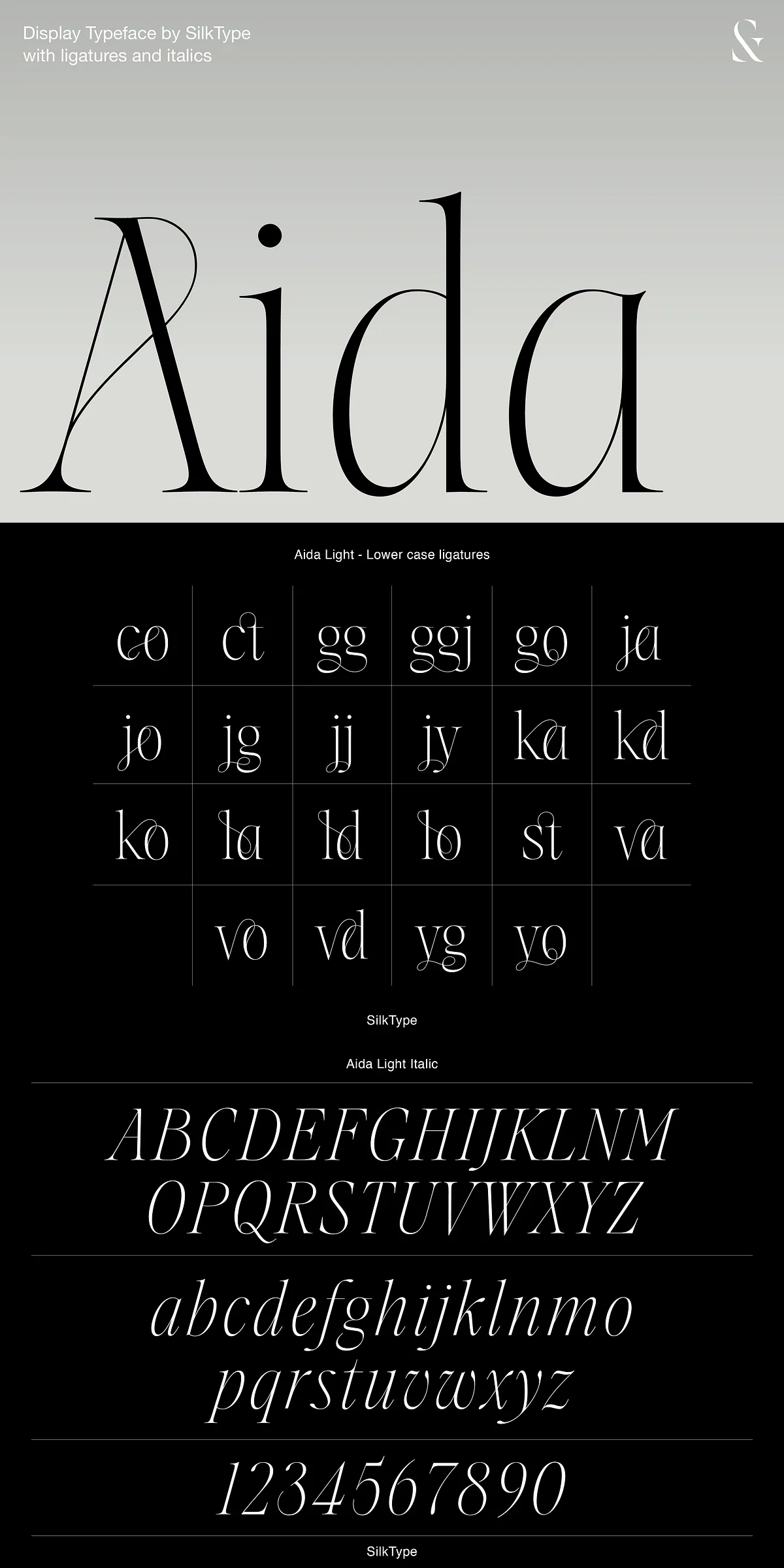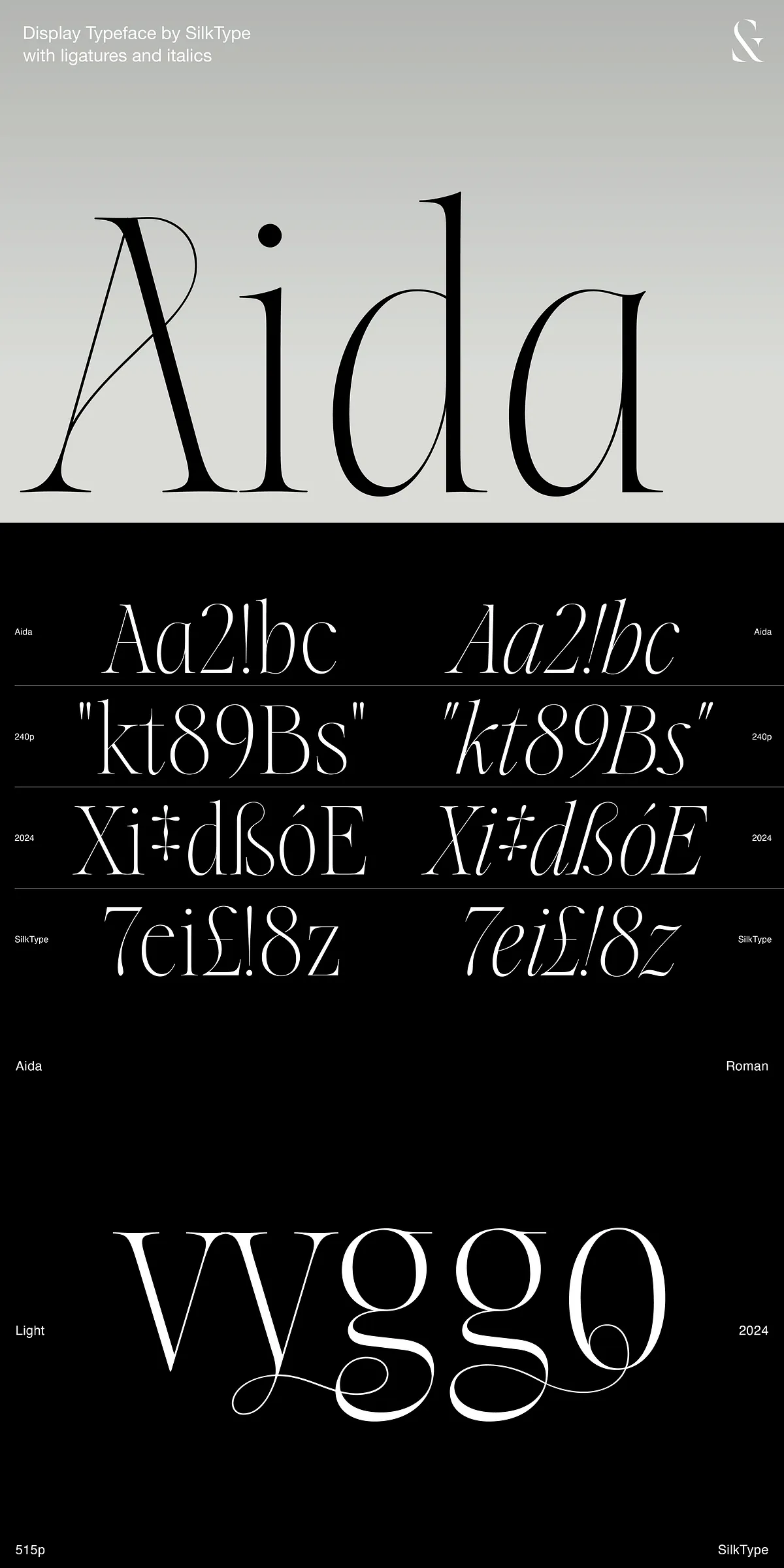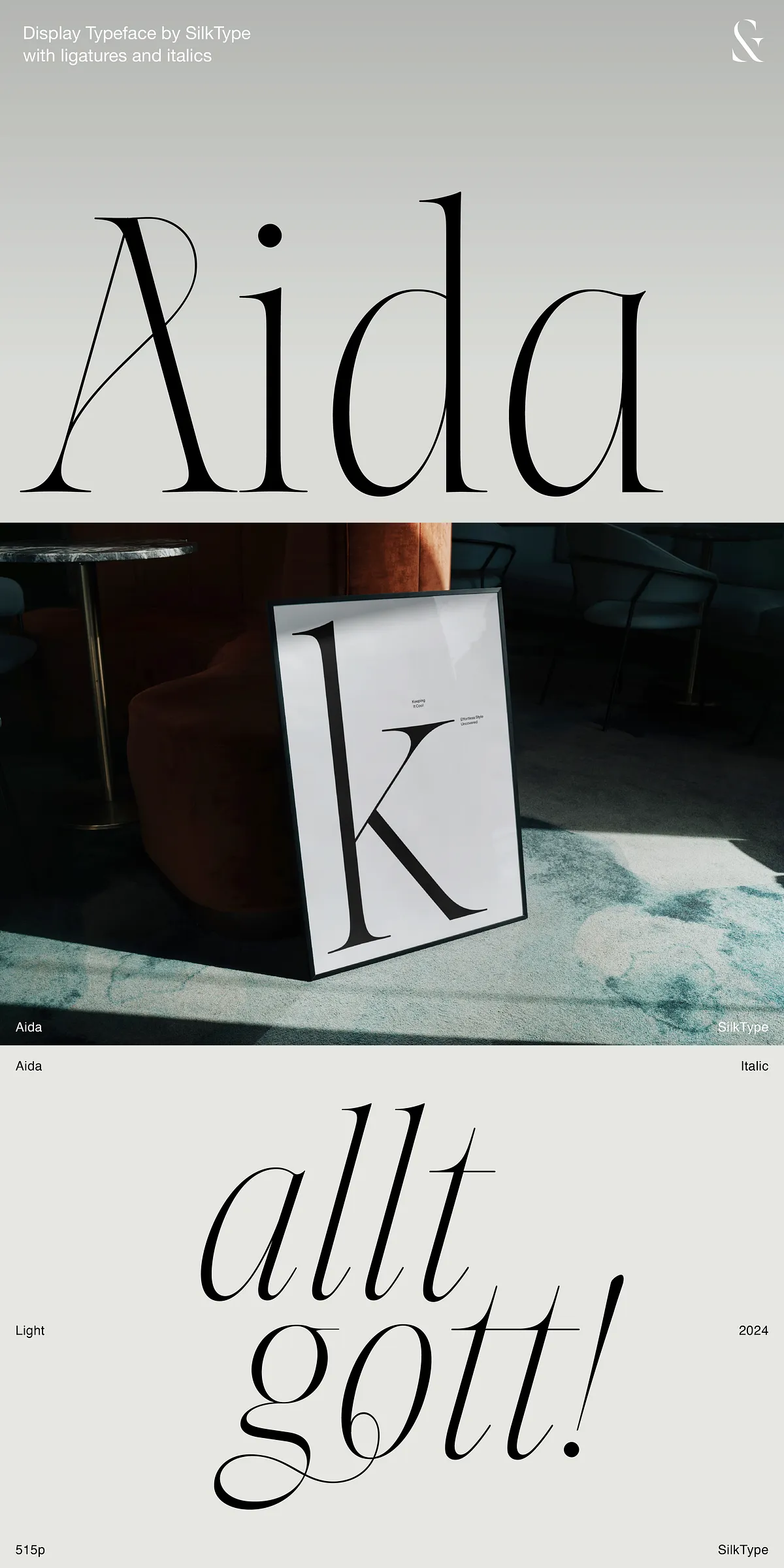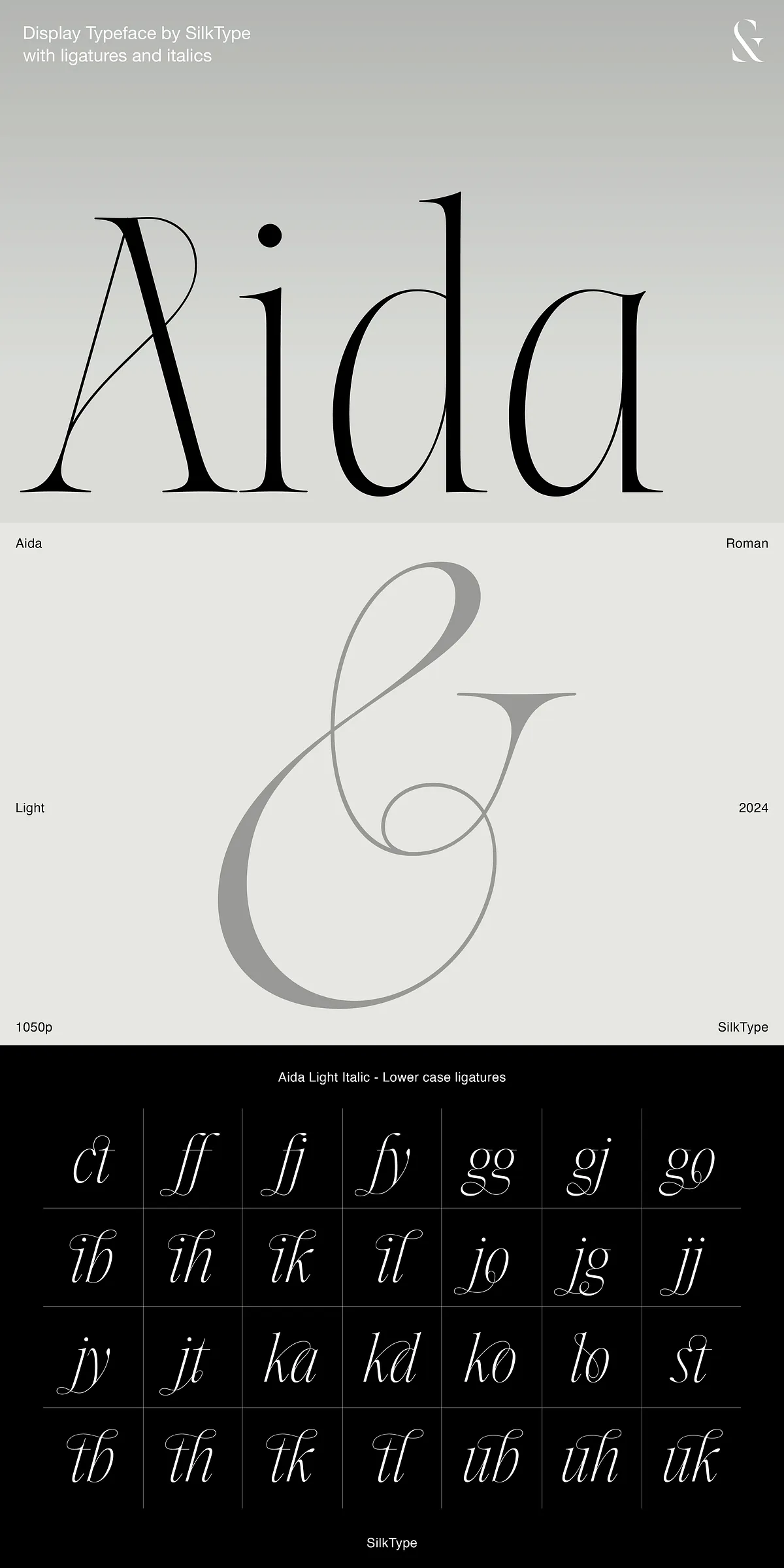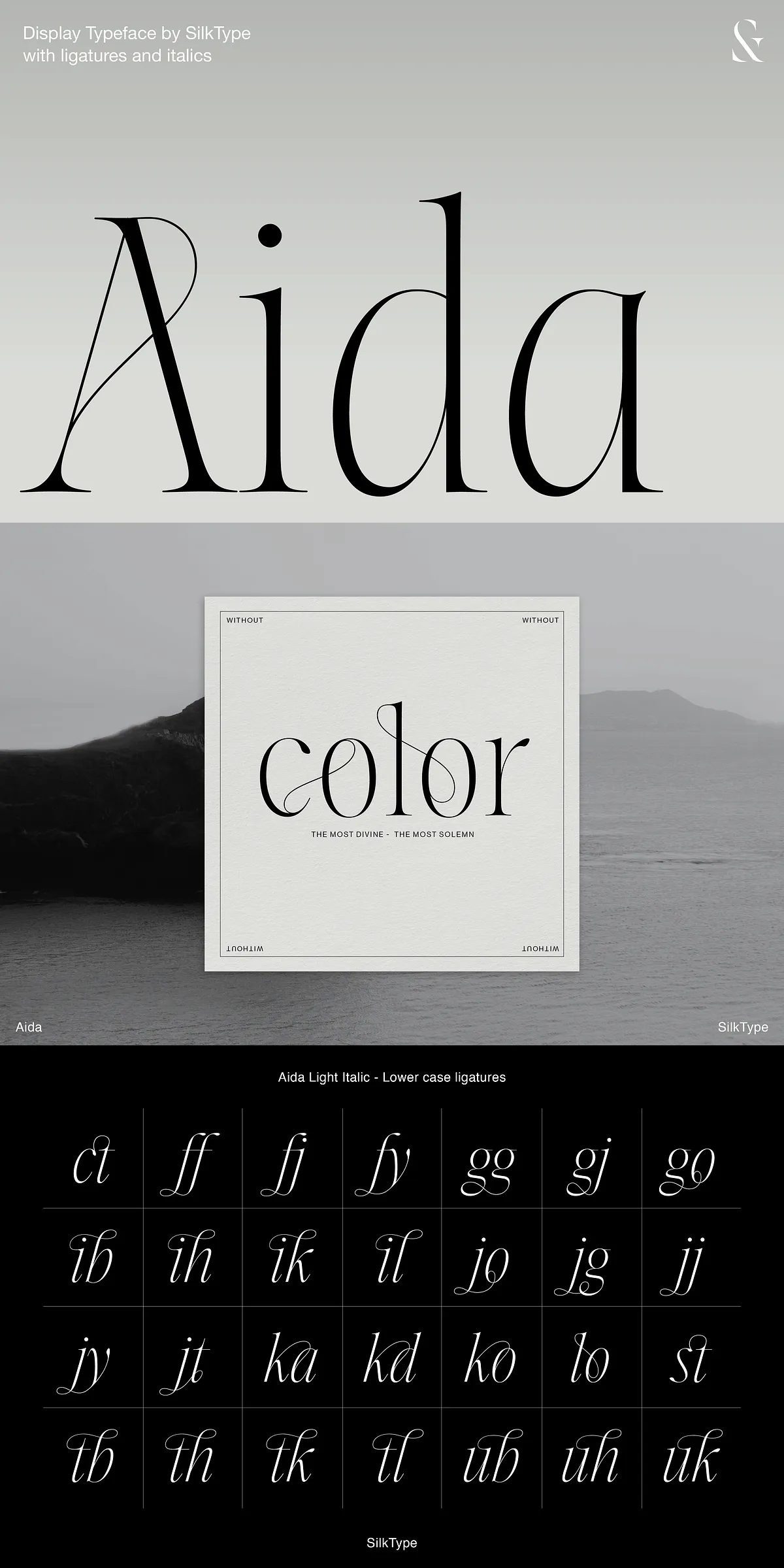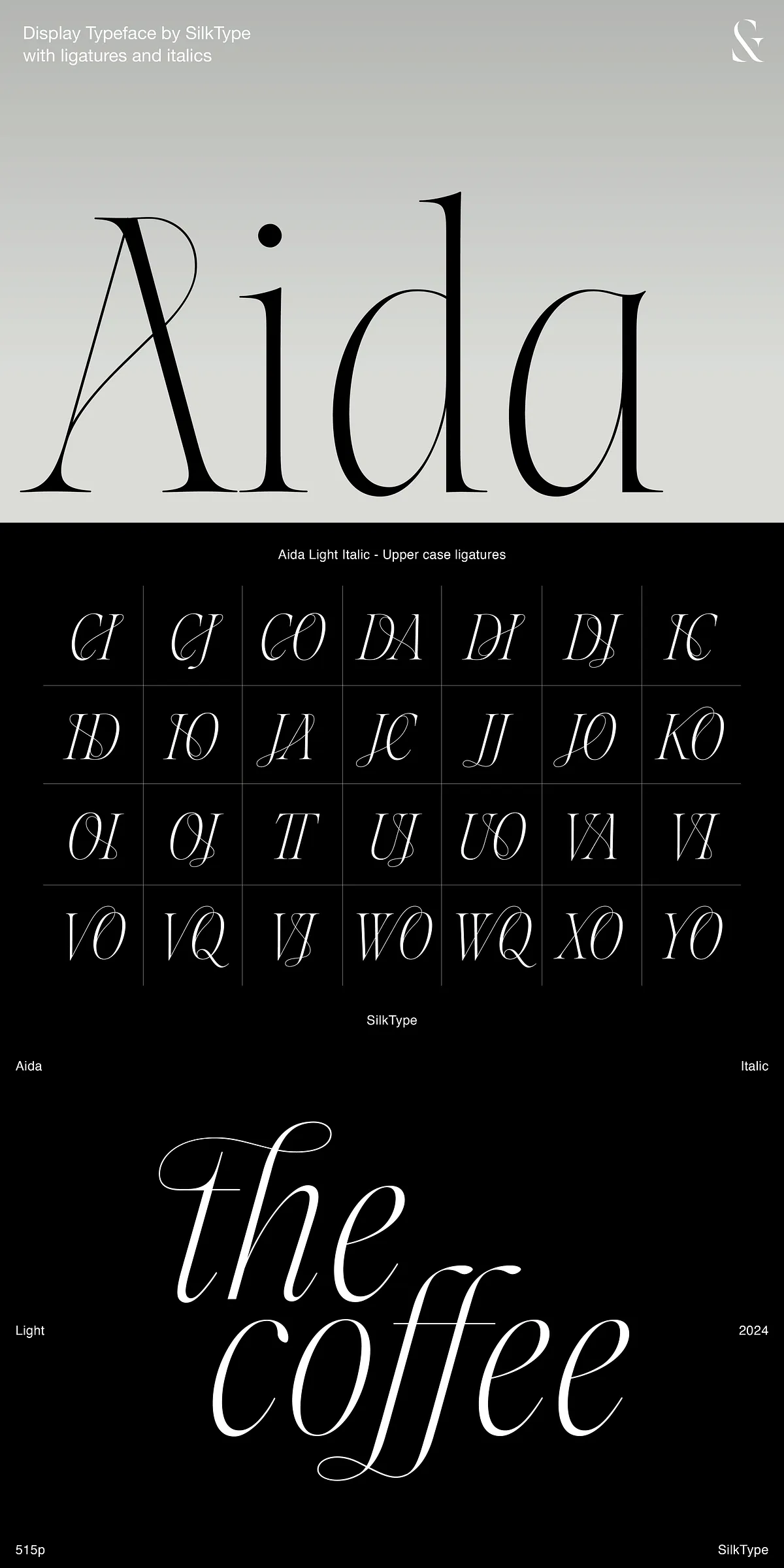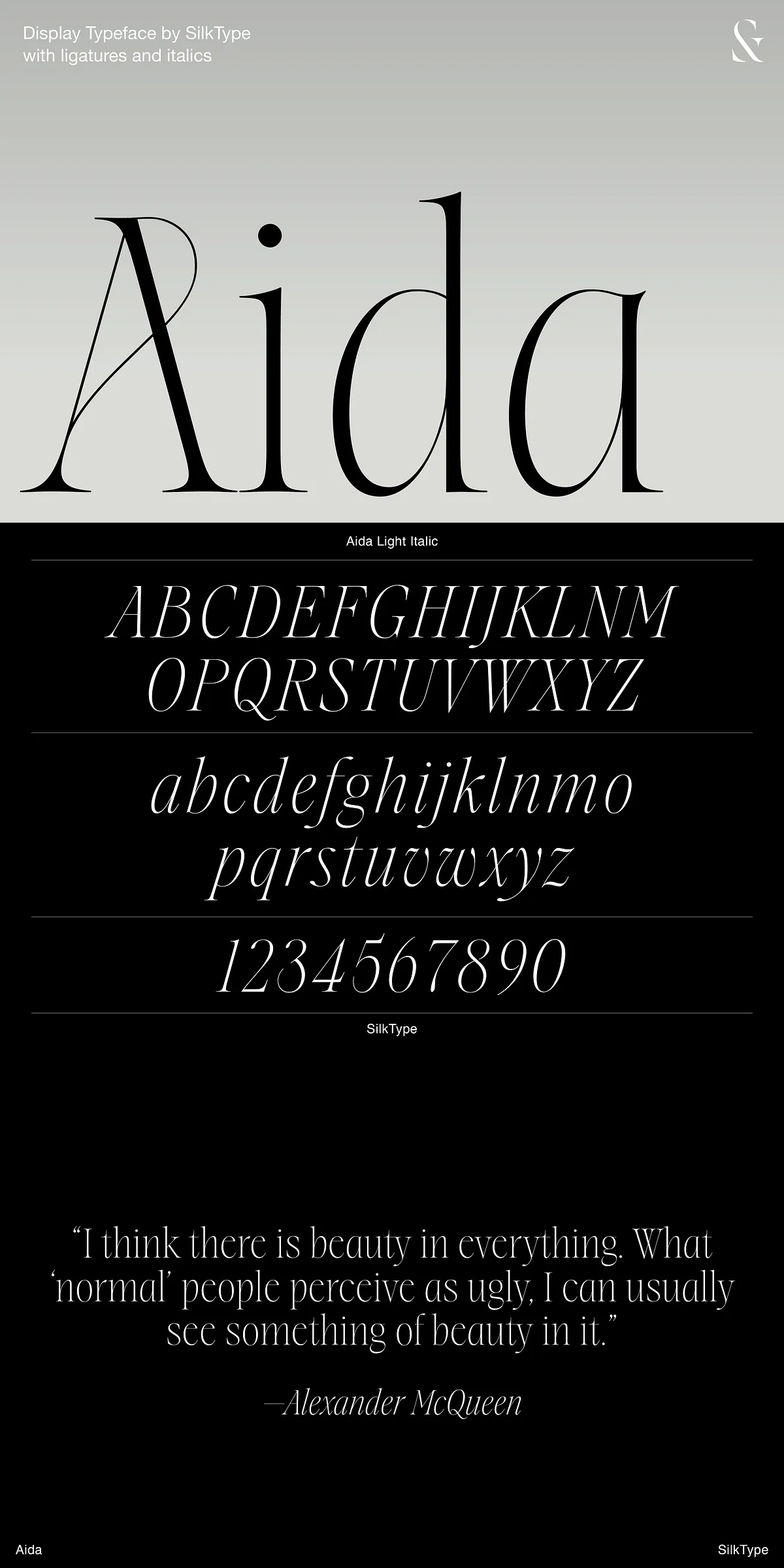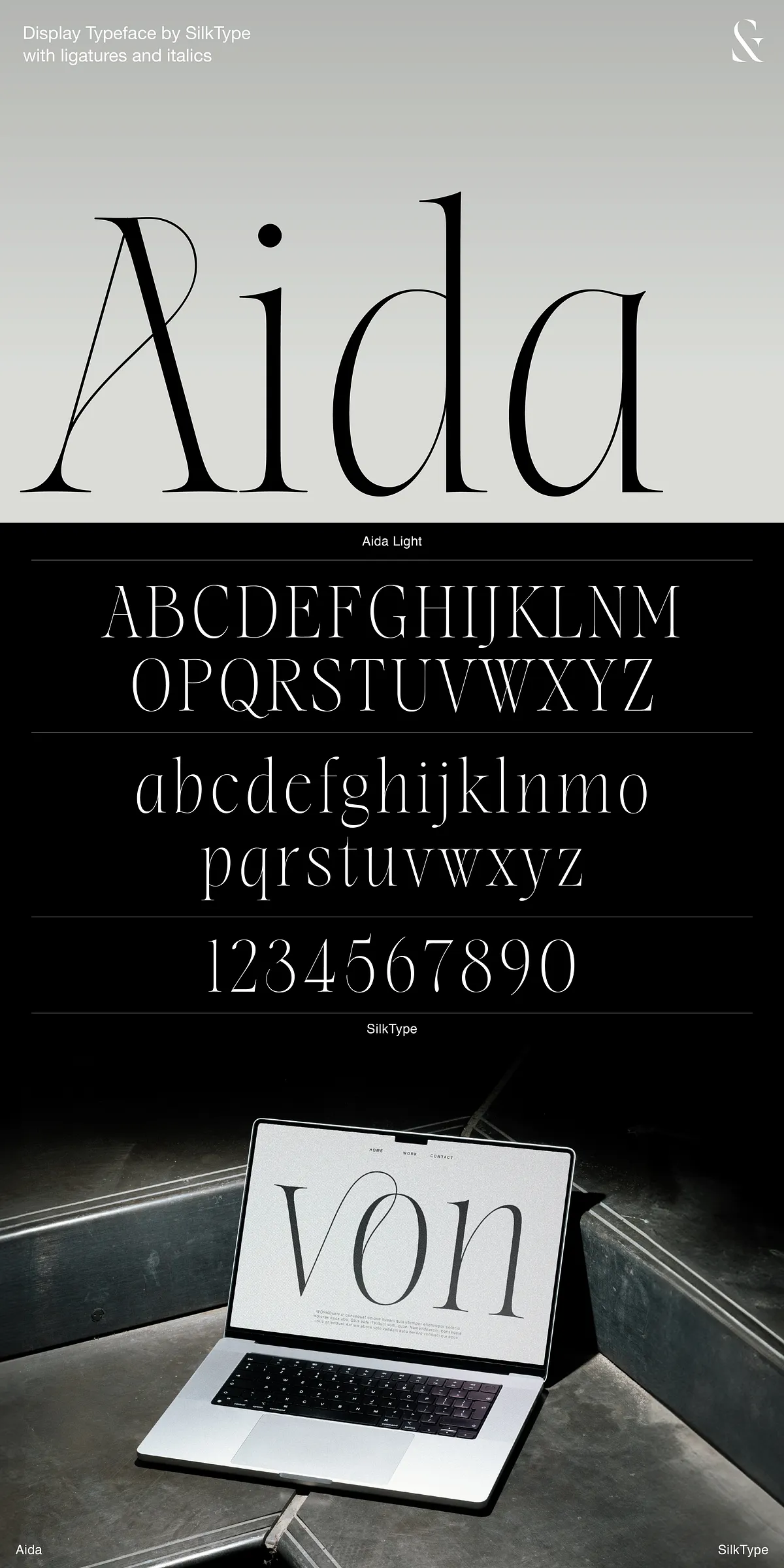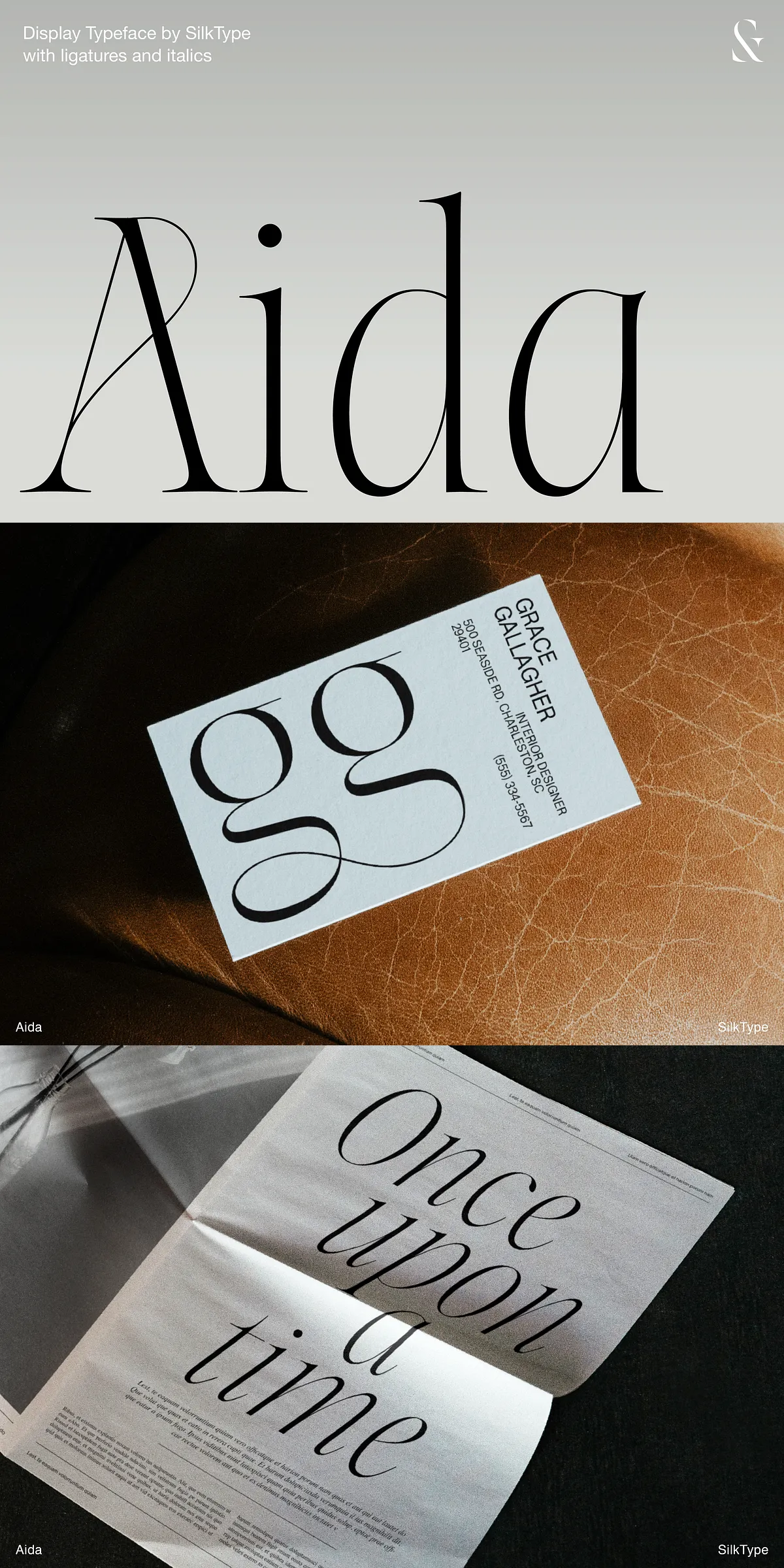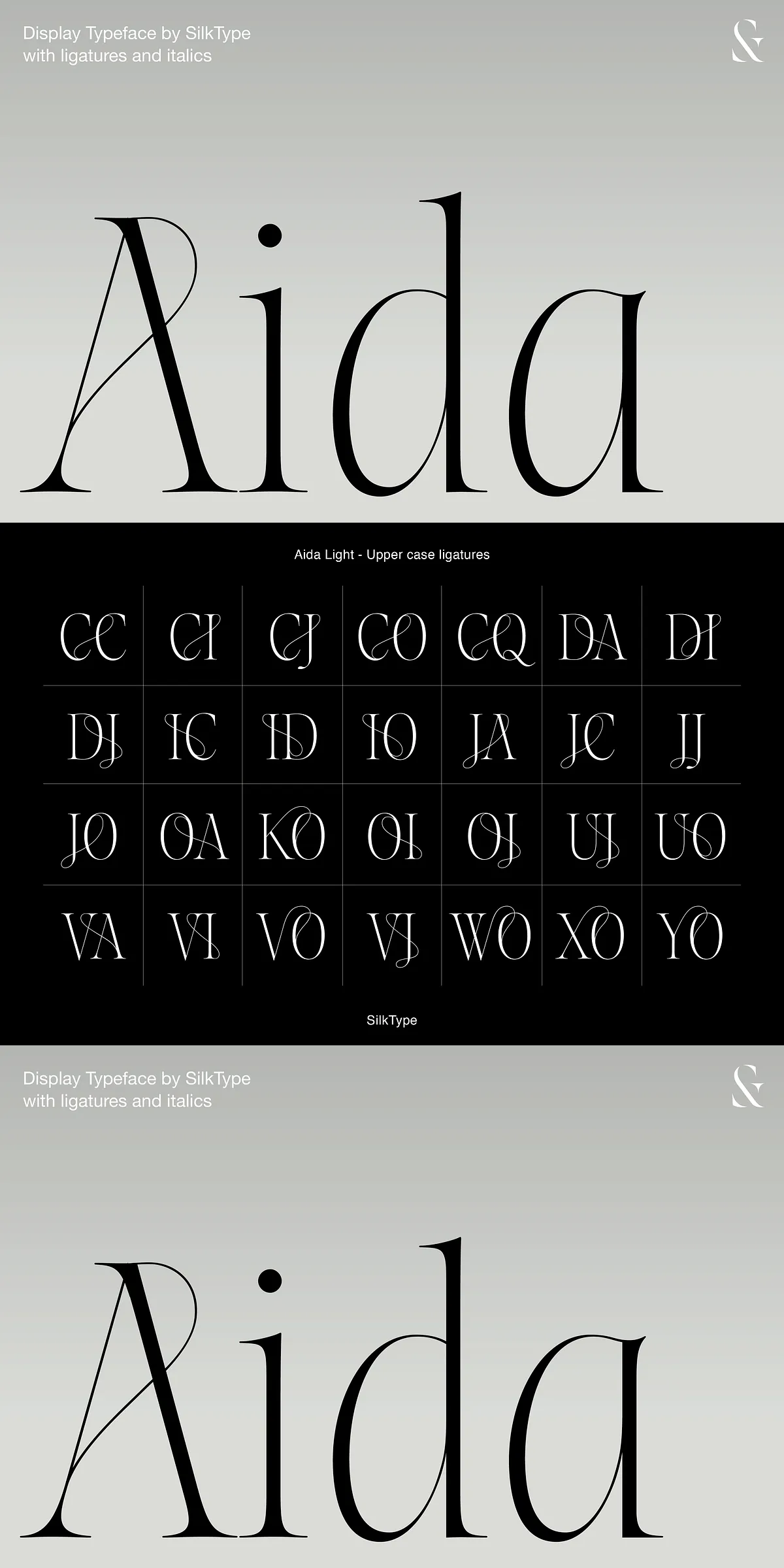
Step into the world of high-end typography with Aida, a striking display font engineered for designers who demand excellence. More than just a typeface, Aida is a statement — a fusion of extreme contrast, delicate craftsmanship, and artistic precision. Its ultra-thin serifs and hairline strokes deliver a sense of delicate strength, creating a visual tension that grabs attention without shouting. Whether you’re crafting a luxury brand identity, a fashion editorial spread, or a high-impact headline, Aida transforms the ordinary into the extraordinary.
Masterpiece Detail: Precision in Every Stroke
At the heart of Aida’s appeal is its extreme contrast — a bold, dark weight paired with hairline thin serifs that appear to float above the baseline. This architectural precision gives Aida an almost architectural elegance, reminiscent of fine calligraphy and high-fashion lettering. The thin strokes are not fragile; they’re intentional, designed to highlight the balance between strength and grace. With each letterform carefully calibrated, Aida exudes a refined confidence that commands respect on any canvas — from print to digital, from billboards to business cards.
The Art of the Ligature: Where Creativity Meets Craft
Aida is bursting with over 100 meticulously crafted ligatures and alternate letterforms, offering endless possibilities for personalization. From the flowing “fi” and “fl” combinations to complex script-integrated joins, every ligature is designed to enhance visual harmony while adding a layer of bespoke artistry. Use them to create seamless transitions between words, to emphasize rhythm in text, or simply to make your design feel hand-curated rather than machine-generated.
Whether you’re working on a luxury fashion label, an art book, or an exclusive invitation, Aida’s ligatures allow you to express subtle individuality. The italic variant, with its sweeping curves and expressive angles, amplifies the sense of movement and elegance, making it ideal for romantic, editorial, or avant-garde projects.
Perfect for Premium Design Projects
Aida isn’t just beautiful — it’s purpose-built for high-impact applications. Here’s where it truly shines:
- Luxury Branding & Logos: Create unforgettable brand identities with a bold yet delicate signature font that speaks of exclusivity and craftsmanship.
- Editorial & Fashion Design: Enhance magazine covers, spreads, and layout headlines with a font that adds depth, drama, and sophistication.
- High-End Product Packaging: Make your product stand out on shelves with delicate yet powerful typography that draws the eye and commands attention.
- Event & Campaign Graphics: Use Aida for high-profile launches, fashion shows, or luxury travel campaigns that demand a premium visual language.
Tech-Ready, Versatile, and Professional
Design with Depth. Create with Intention.
With Aida, typography becomes storytelling. It’s not just about reading — it’s about feeling. The thin lines whisper elegance. The bold strokes roar confidence. The ligatures dance with intention. Use Aida to create spaces that feel curated, exclusive, and emotionally resonant.